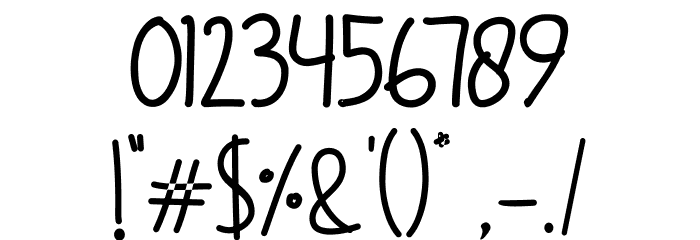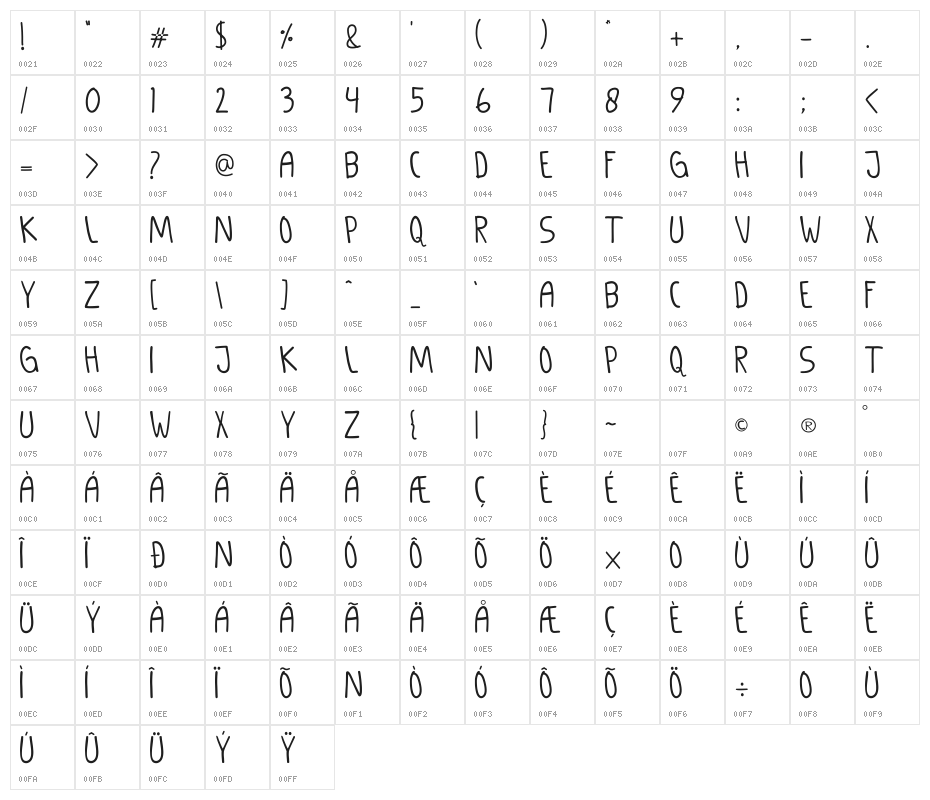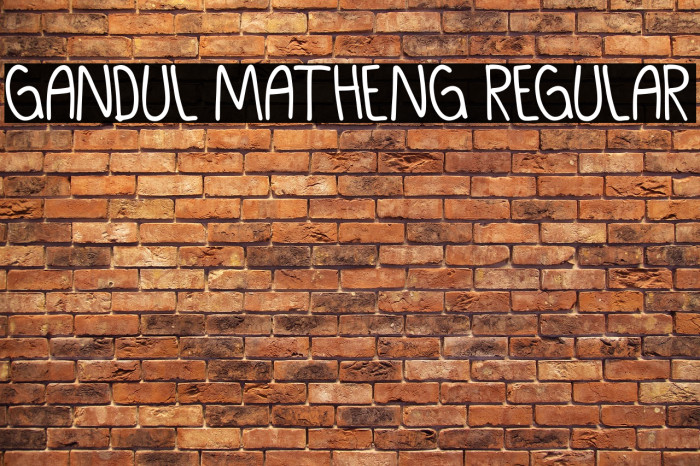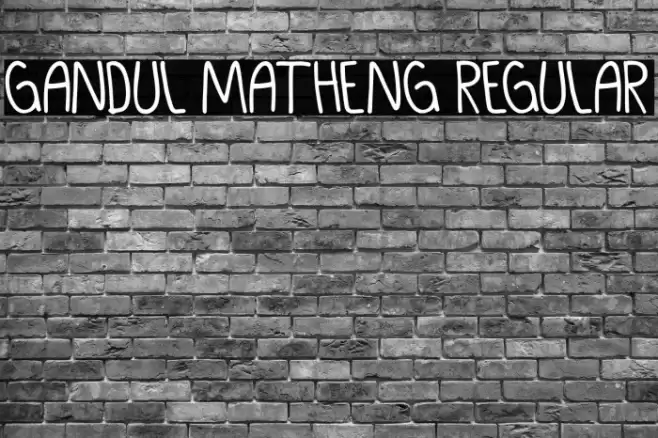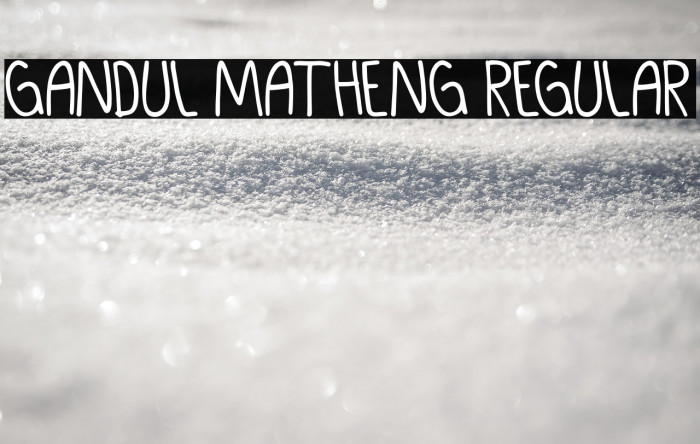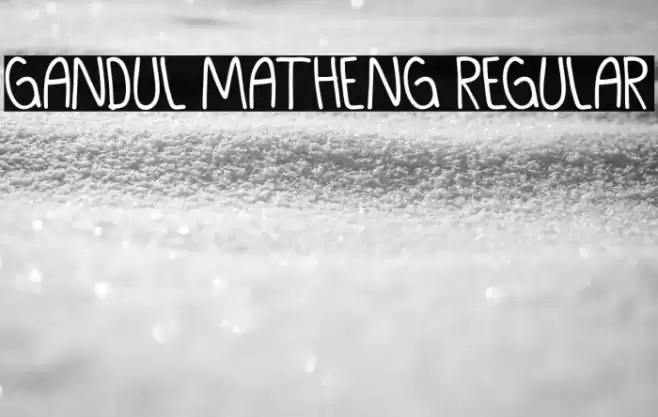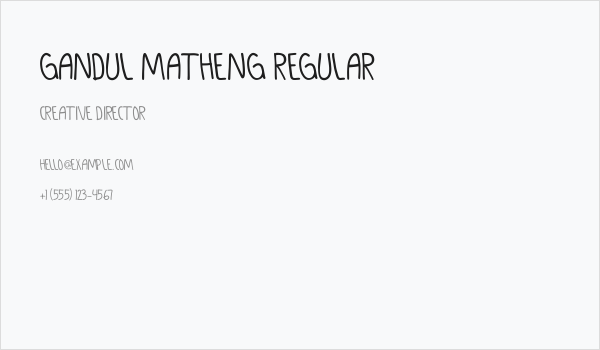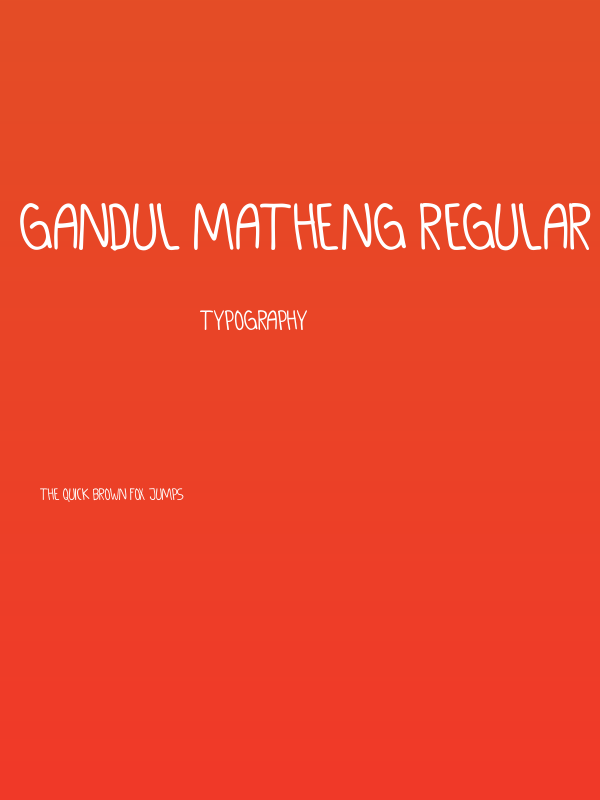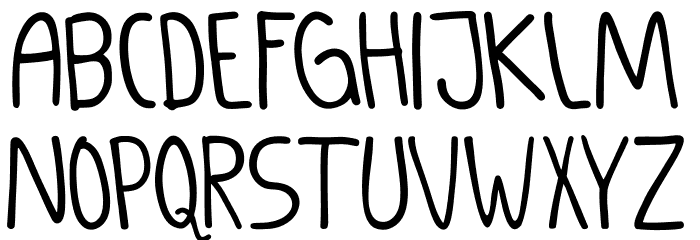
GANDUL MATHENG Regular Font
GANDUL MATHENG Regular Description
This font features a playful and casual handwritten style, characterized by its smooth, rounded edges and consistent stroke width. The letters are slightly elongated, giving them a unique and approachable appearance. The uppercase and lowercase letters maintain a uniform height, creating a cohesive look. Numbers and special characters are designed with the same playful aesthetic, ensuring a harmonious overall appearance. This font is ideal for projects that require a friendly and informal touch, such as children's books, casual invitations, or personal branding.
| Proposed Projects | Ideal for children's books, casual invitations, personal branding, and playful designs. |